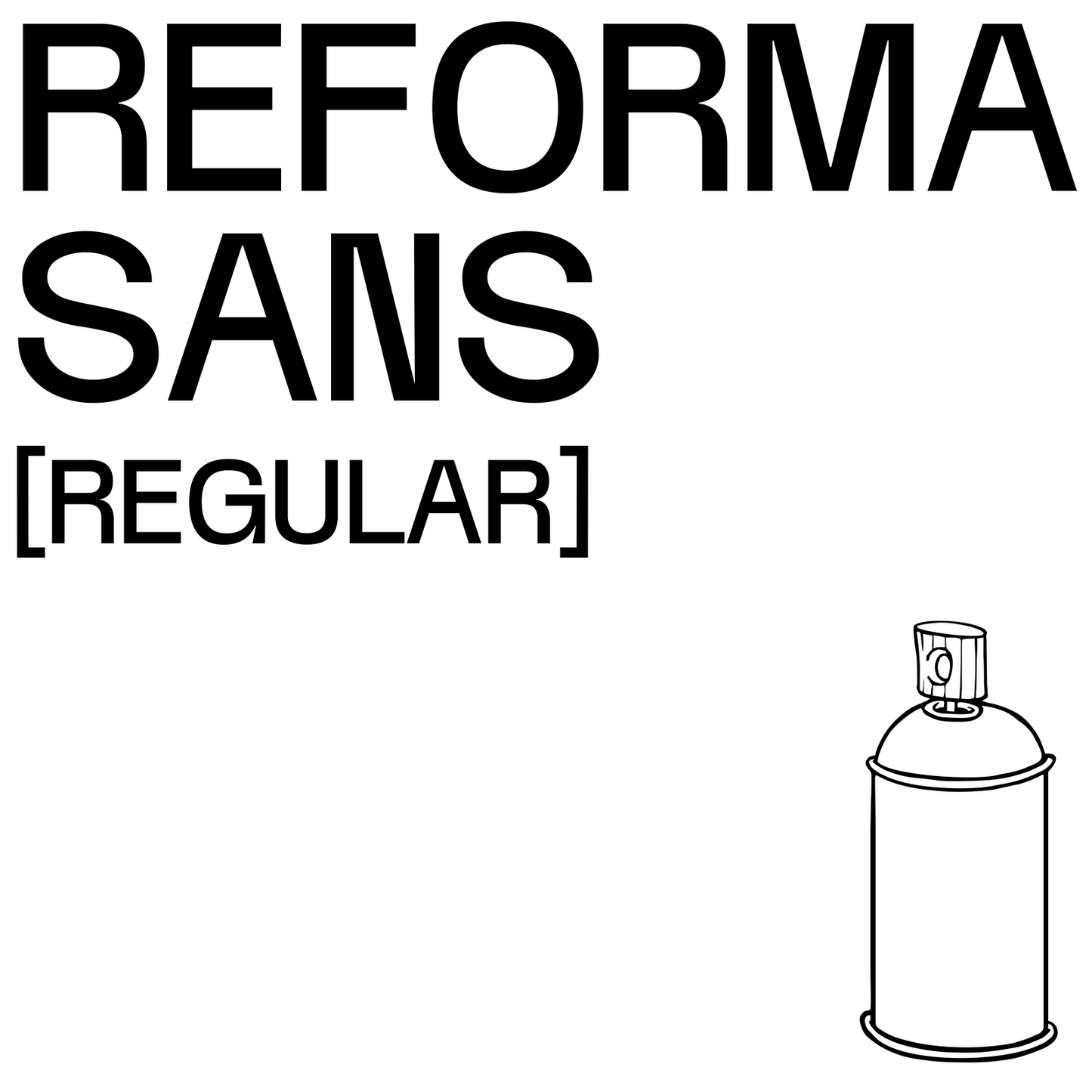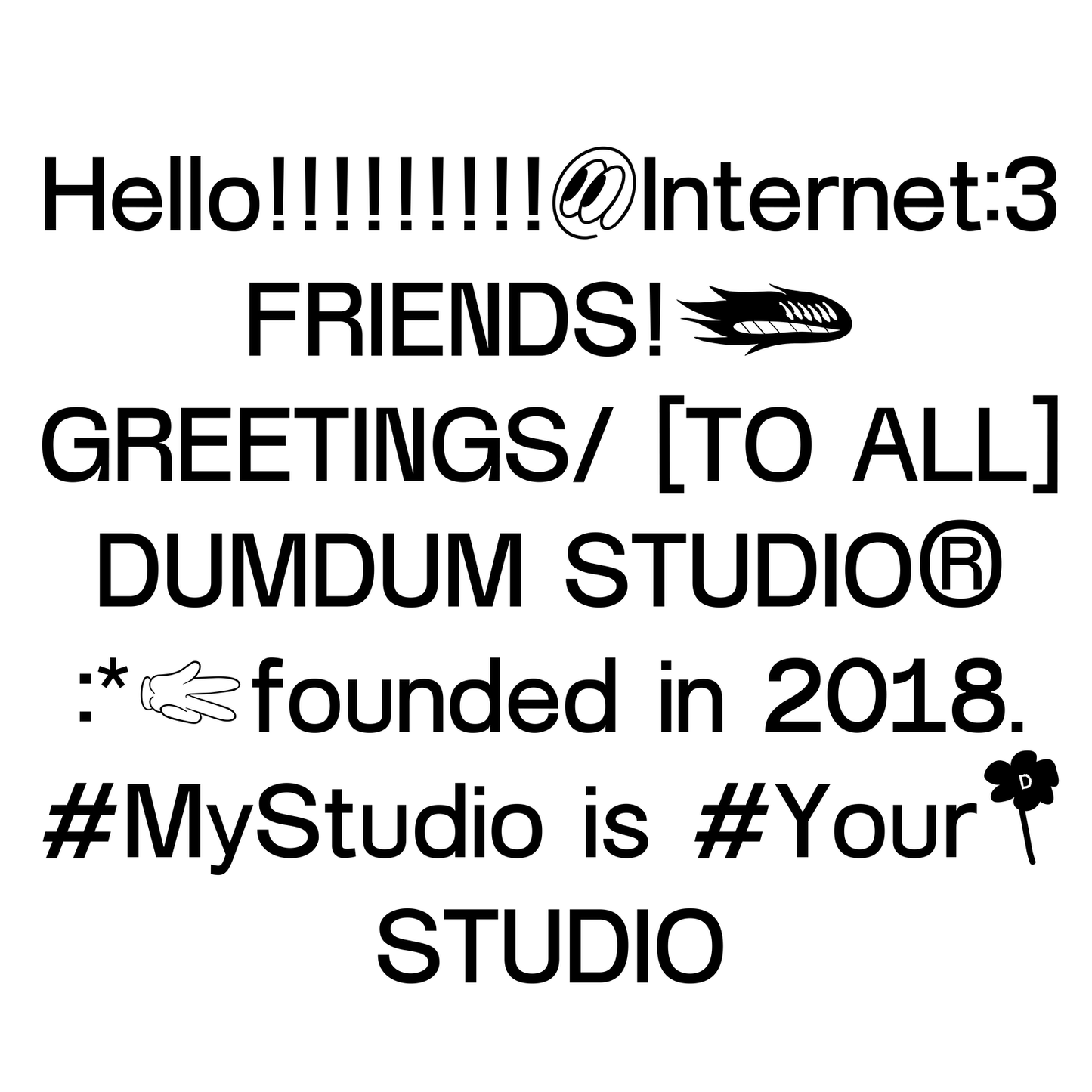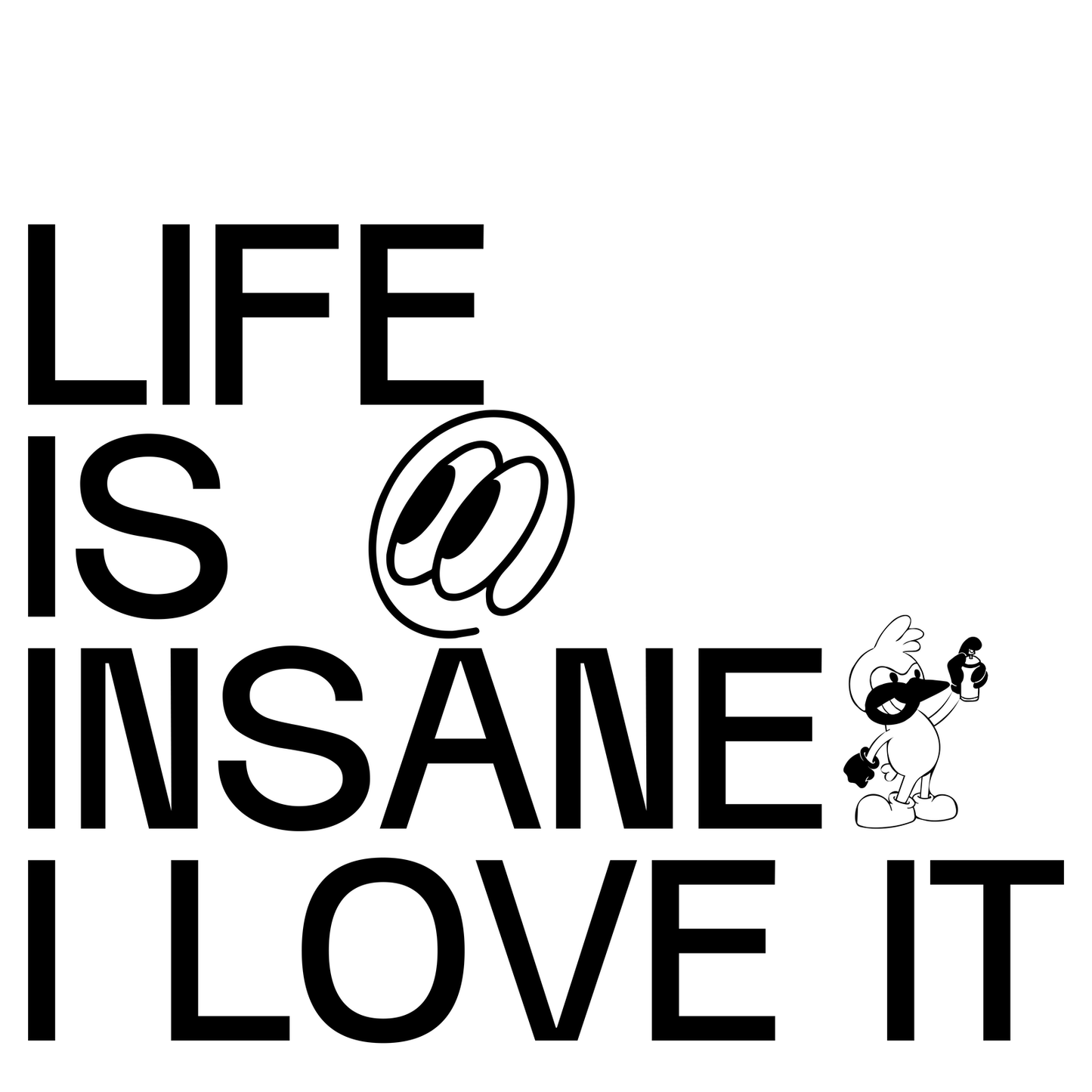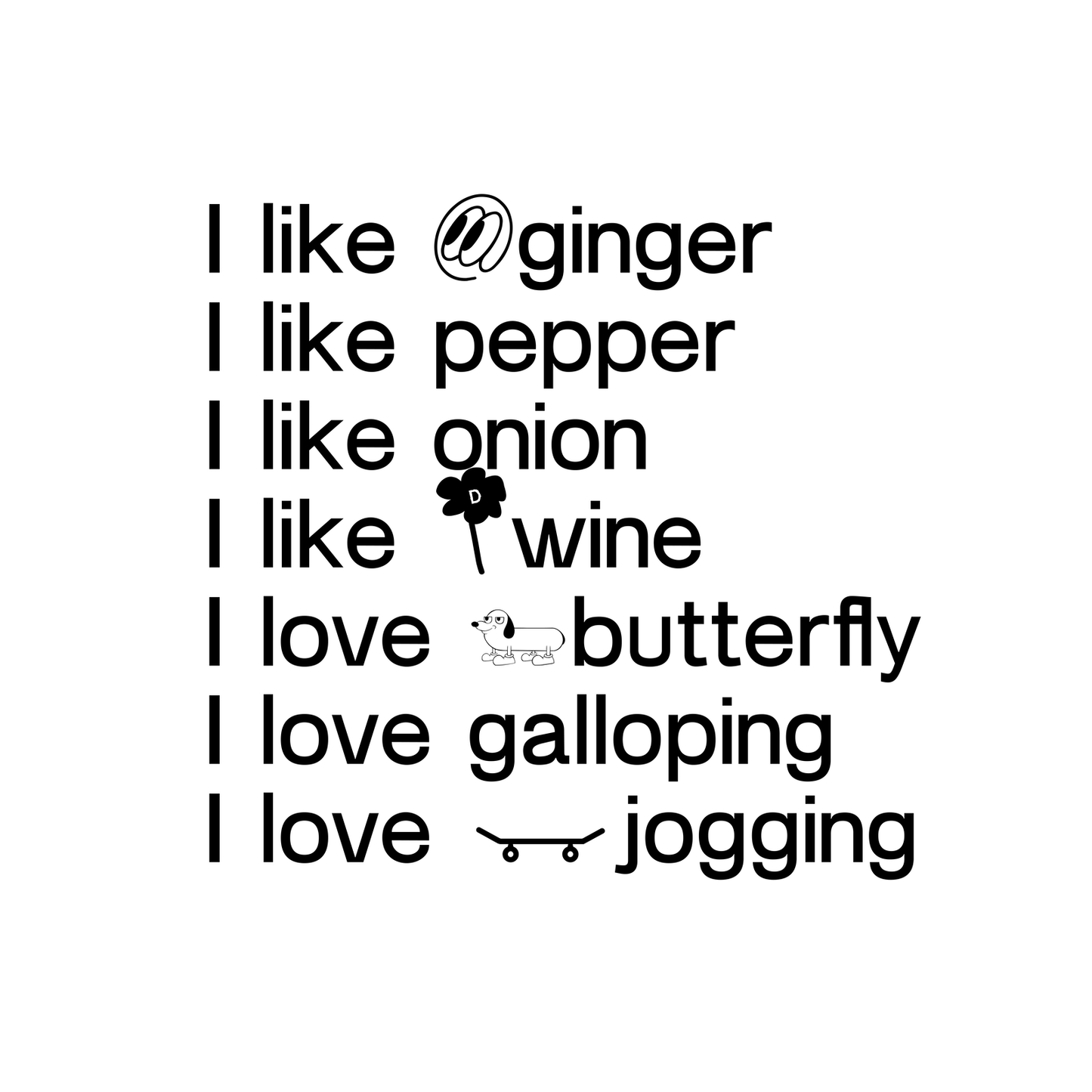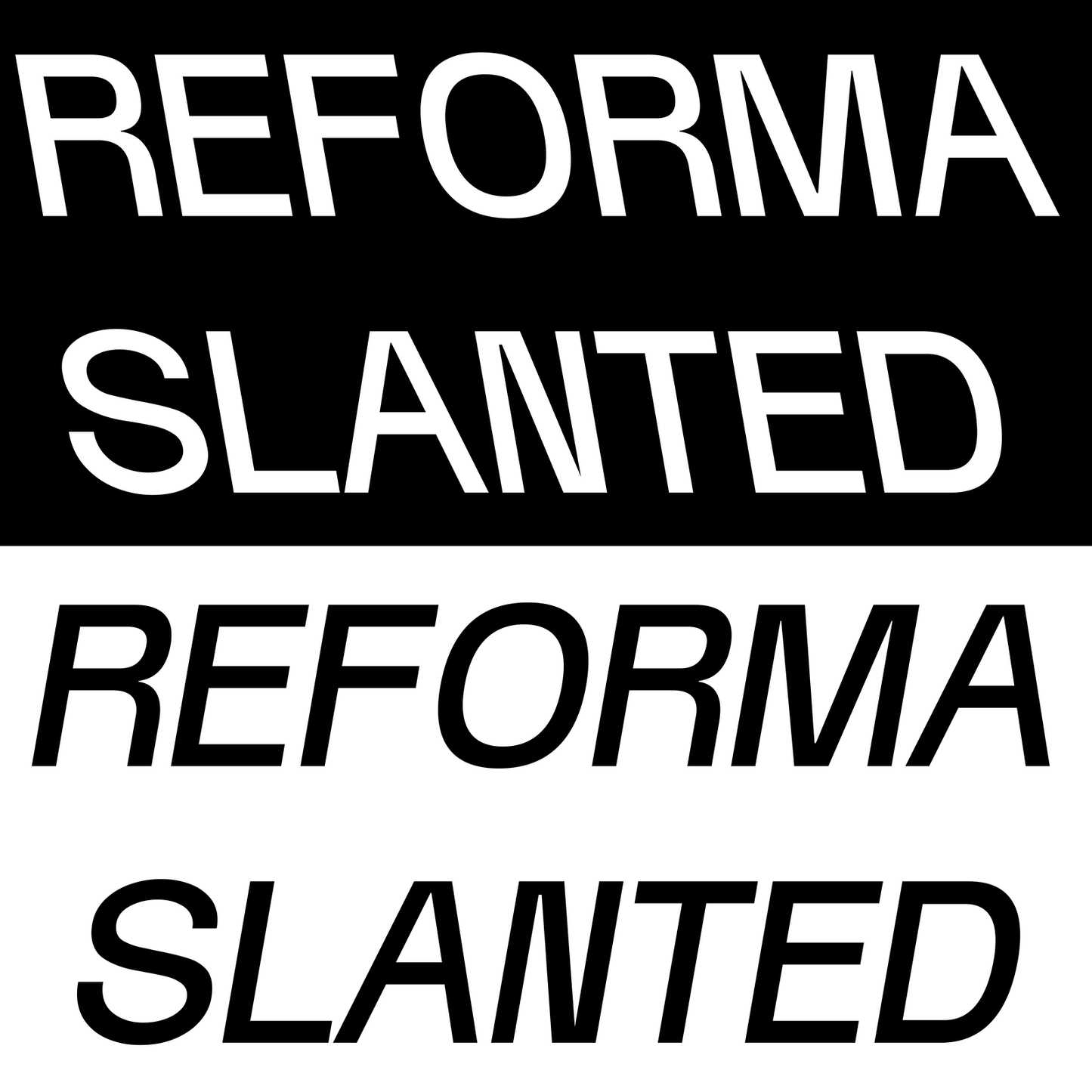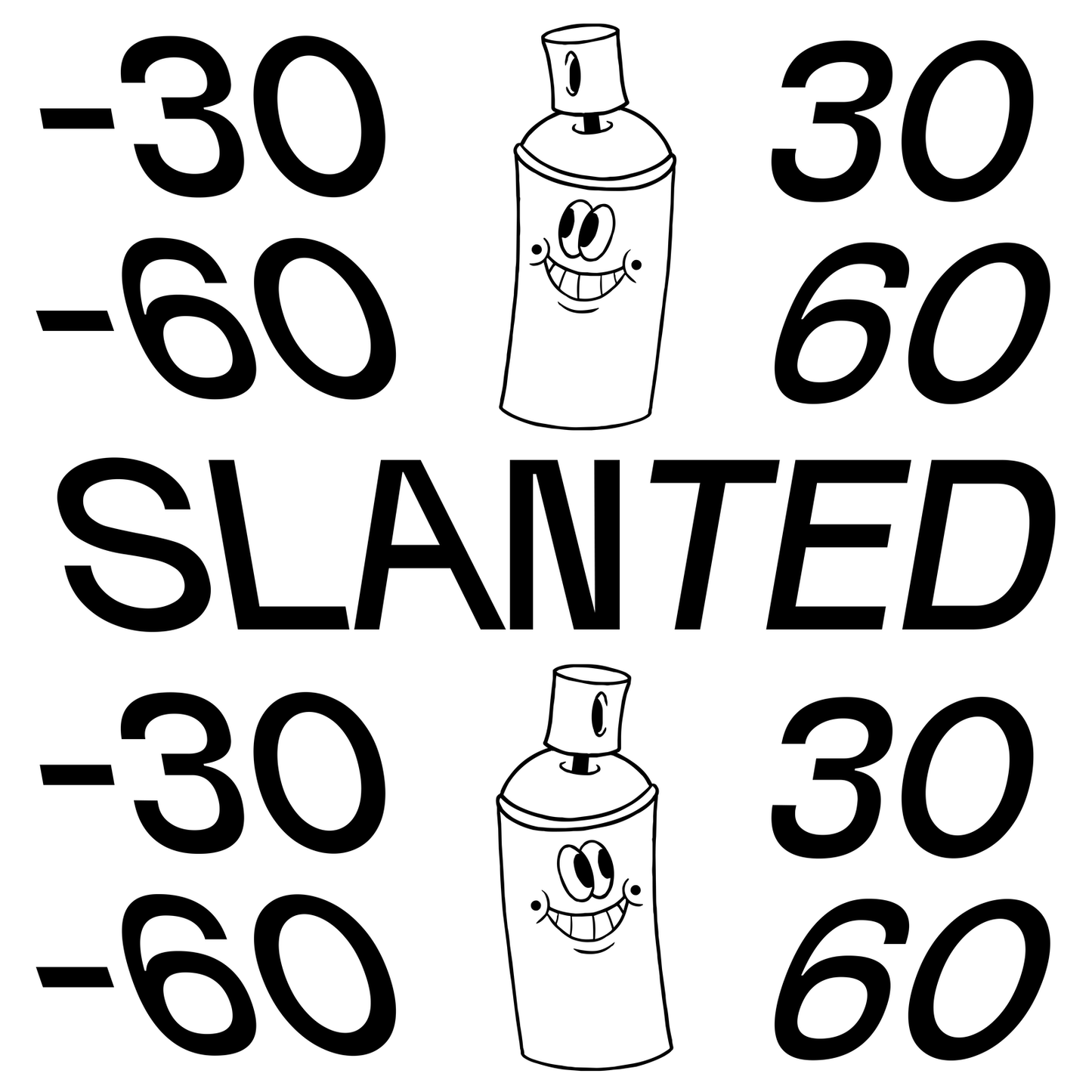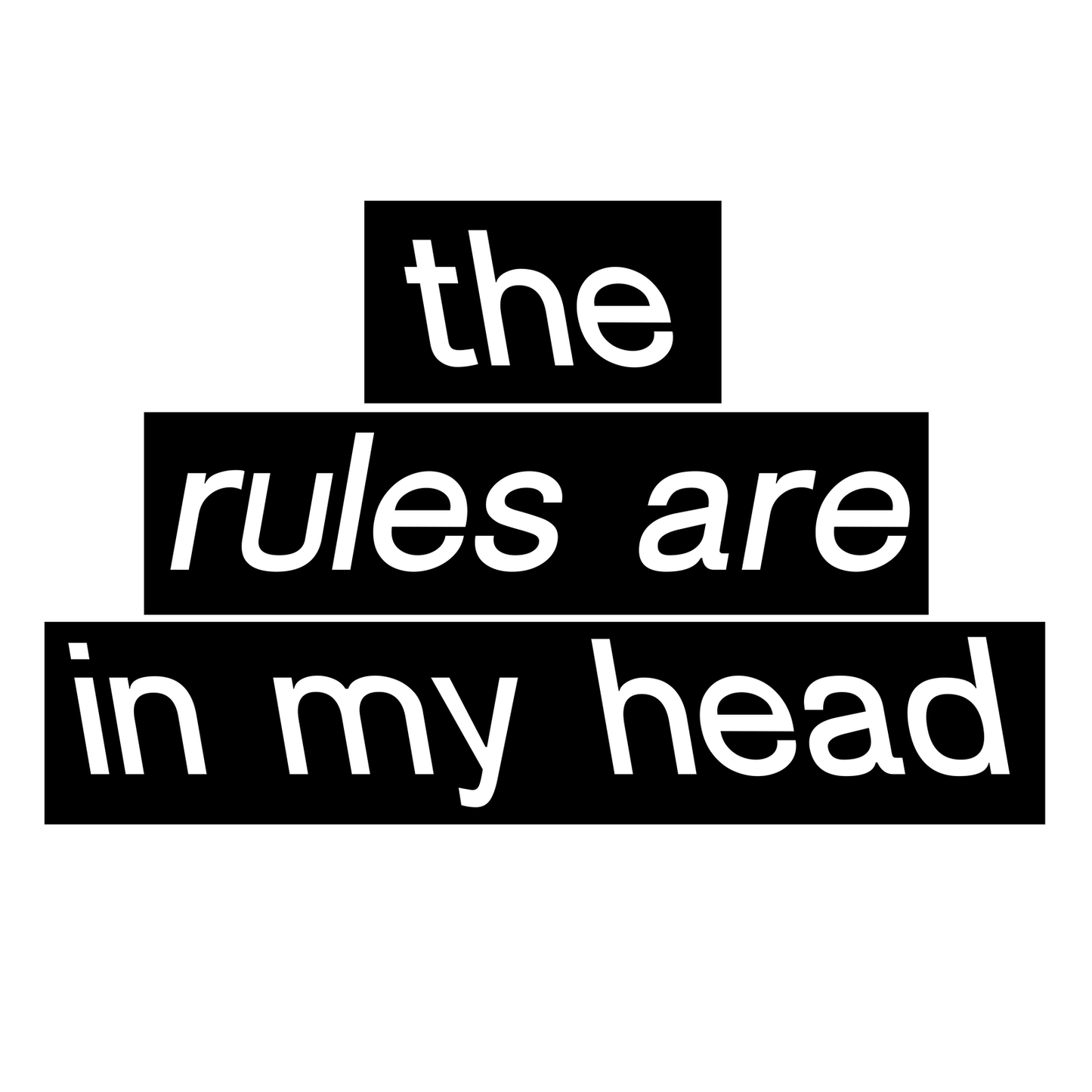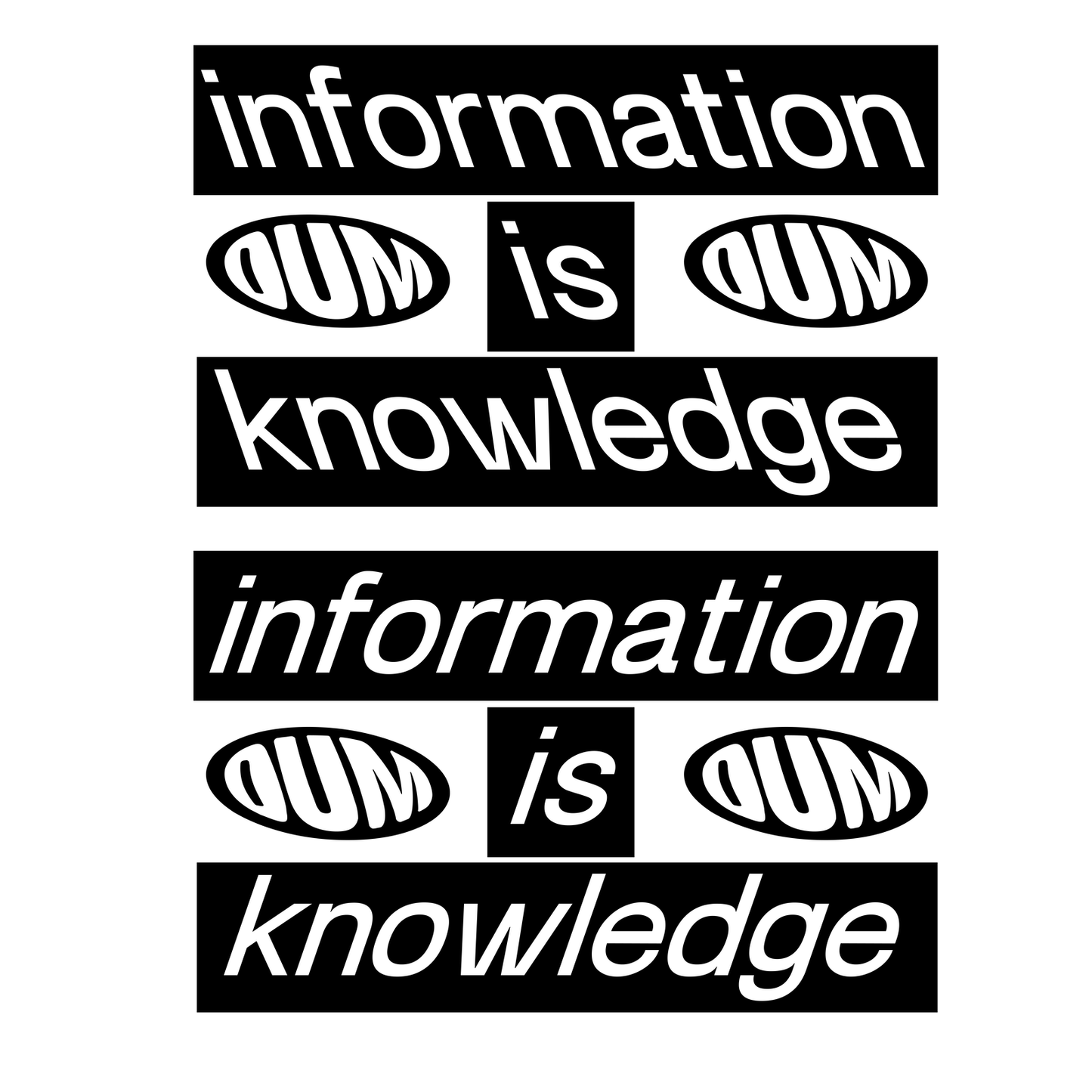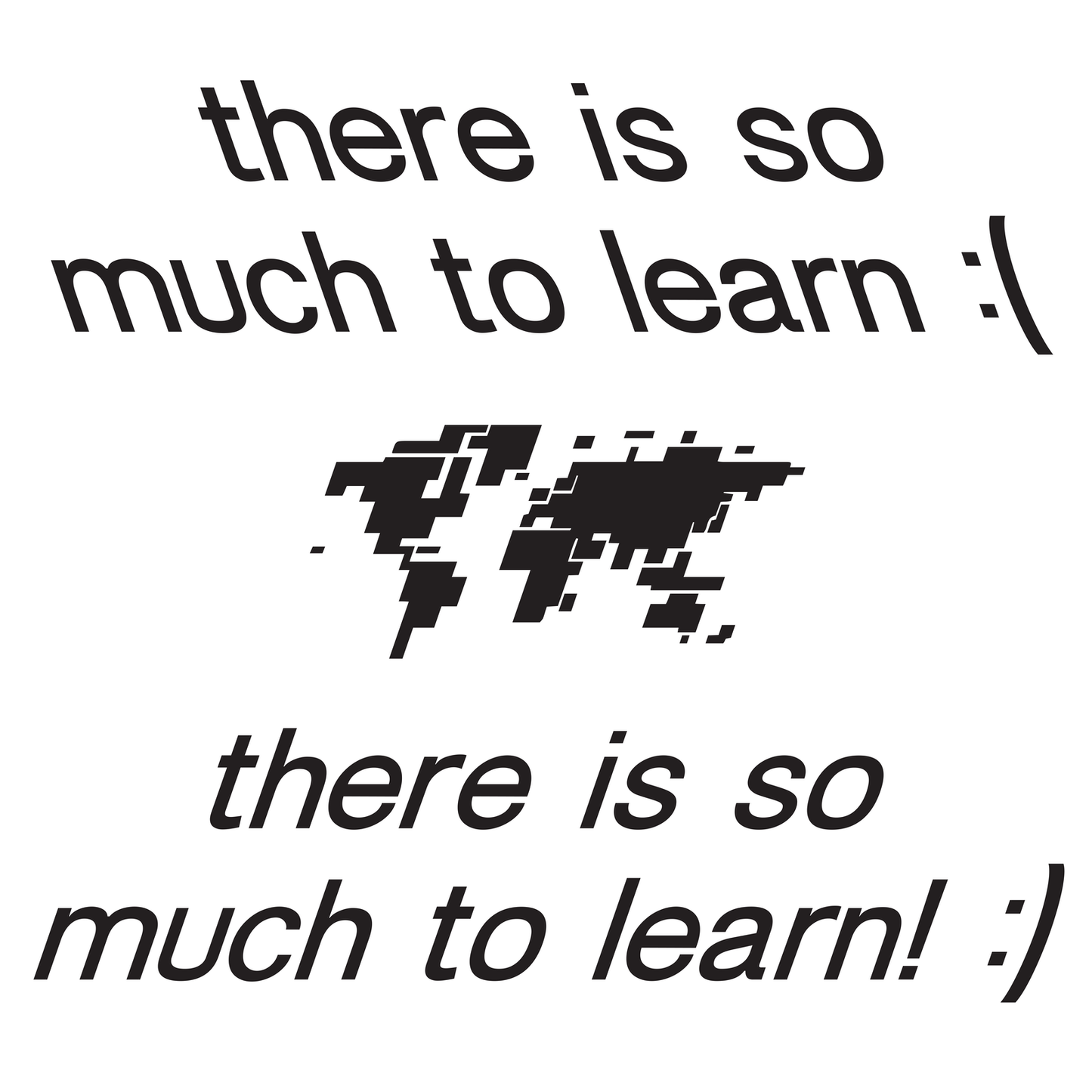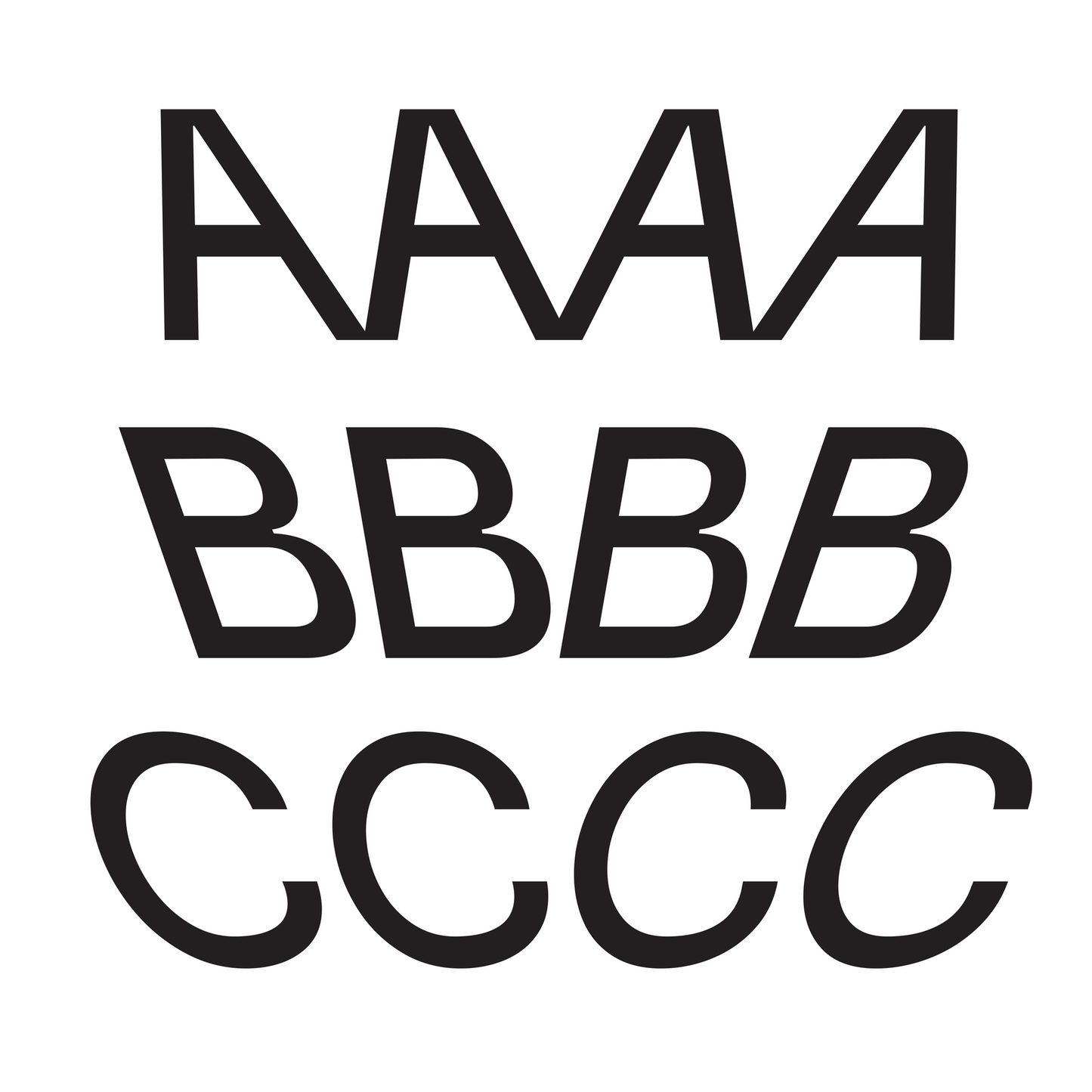
Reforma Sans
Mario Julian Gutierrez
Reforma Sans was originally developed in collaboration with Aldo Arillo. The typeface was created as a reflection of the studio’s identity, inspired by its birthplace—Reforma Street, where DUM DUM STUDIO was founded. Beyond its geographic reference, Reforma also embodies the concept of "reform"—the act of reshaping, refining, and evolving.
This typeface includes illustrated icons and elements designed by Peemouh and Mario Julian, adding a unique visual layer to its character.
— TOTAL GLYPHS: 536 GLYPHS
— UPPERCASE
— LOWERCASE
— LIGATURES
— ALTERNATES AND SUBSTITUTES